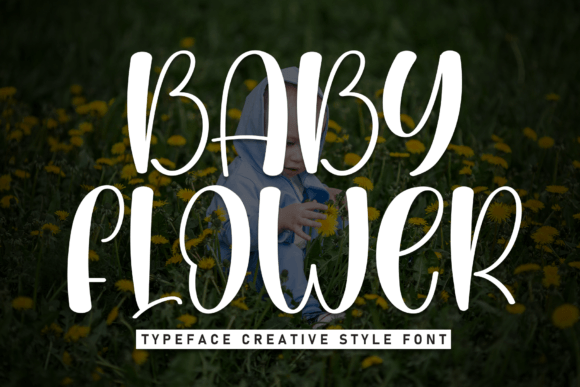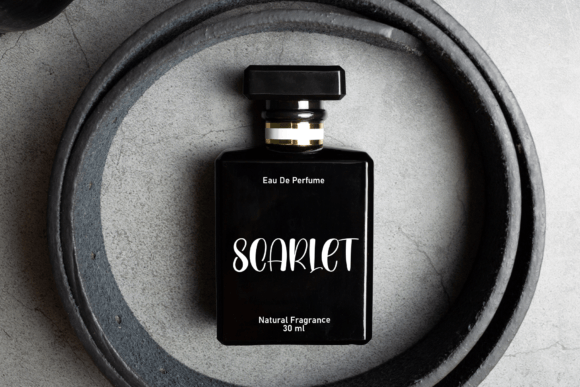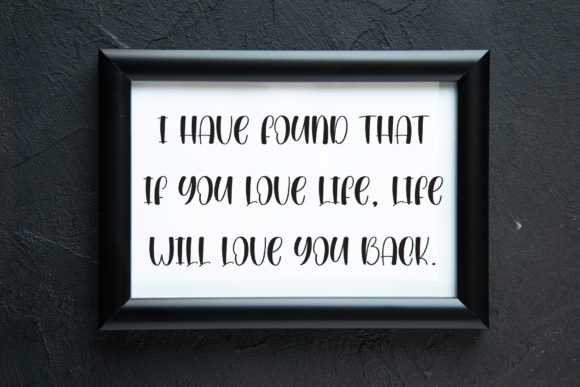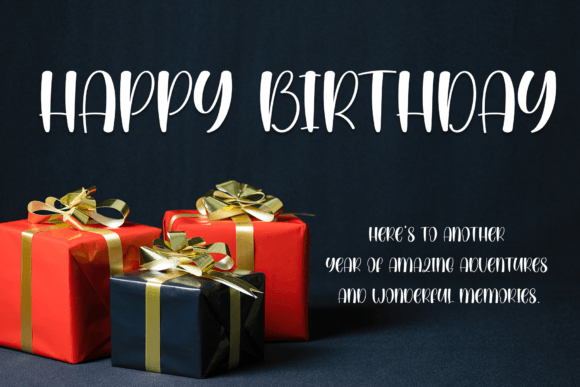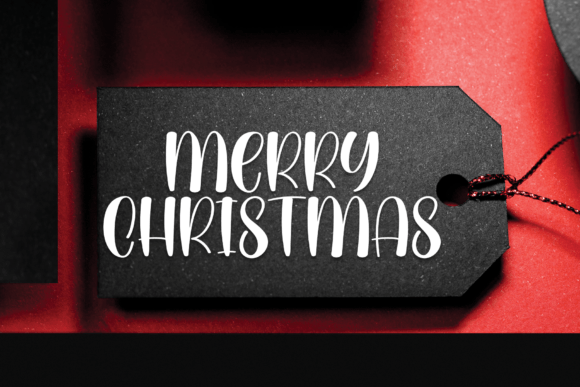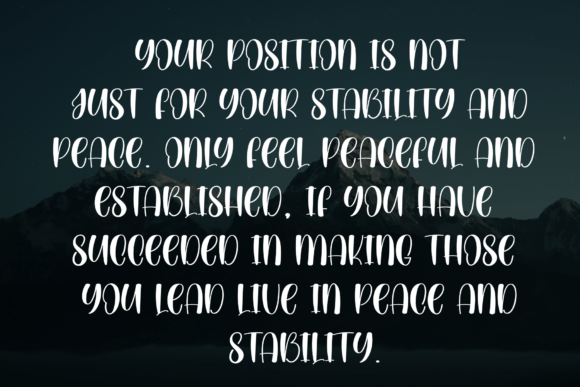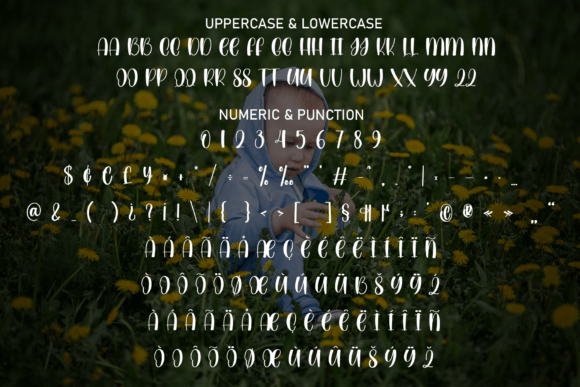
The Charm of Baby Flower Font: Adding Whimsy to Your Creations
Have you ever sat down with a blank sheet of paper and a pen, eager to craft the perfect handwritten note or invitation? The blank page stares back at you, and suddenly, the pressure is on. But what if you had the perfect tool to bring your creativity to life? Enter Baby Flower Font, a delightful handwritten font that’s sure to add a warm, friendly touch to your projects.
This charming font boasts a unique blend of thin and bold lines, creating a playful and whimsical style that’s perfect for designers looking to add a personal touch to their work. Whether you’re a seasoned pro or a creative enthusiast, Baby Flower Font is an invaluable asset that will help you bring your ideas to life with ease.
Baby Flower Font Key Features
- Unique Characteristics: This font features a playful, handwritten style with a mix of cursive and script elements, making it perfect for adding a touch of whimsy to your designs.
Baby Flower Font Review
As a designer, I’ve had the opportunity to work with numerous fonts, and the “Baby Flower Font” is one of the most unique and charming ones I’ve come across.
- The delicate and whimsical feel of the font makes it perfect for children’s books, nursery decorations, and other projects that require a playful touch.
- The font’s intricate details and flourishes add a level of sophistication that’s hard to find in other script fonts.
- The font’s legibility is excellent, making it suitable for body text as well as headings and titles.
- The font’s complexity can make it difficult to use in situations where a simple, clean font is required.
- The font’s cursive nature can make it challenging to read in certain contexts, such as at small sizes or in low-light conditions.
Overall, I’m impressed with the “Baby Flower Font” and its ability to bring a touch of magic to designs. While it may not be suitable for every project, it’s a great addition to any designer’s toolkit.
Use Baby Flower Font for titles, headings, and short paragraphs to add a touch of whimsy and playfulness to your designs.
Experiment with different font sizes and colors to create a visually appealing contrast.
Baby Flower Font is perfect for:
Children’s party invitations and decorations
Wedding stationery and invitations
Baby shower invitations and decorations
Alternatives to Baby Flower Font
Great Vibes Font is a modern, elegant, and whimsical script font that is perfect for creating a romantic and dreamy atmosphere. It is ideal for use in wedding invitations, quotes, and other decorative designs. Great Vibes Font has a similar flowing and cursive feel to Baby Flower Font, but with a more refined and sophisticated look.
Lobster Font is a bold and playful script font that is great for creating attention-grabbing headlines and titles. It has a fun and casual vibe that is perfect for use in social media graphics, advertising, and other promotional materials. While Lobster Font is more bold and edgy than Baby Flower Font, it can be used to create a similar sense of whimsy and playfulness.
Carolyna Pro Font is a beautiful and elegant script font that is perfect for use in luxury branding, high-end packaging, and other sophisticated designs. It has a refined and sophisticated look that is similar to Baby Flower Font, but with a more modern and sleek feel. Carolyna Pro Font is ideal for use in designs that require a touch of elegance and sophistication.
What is the recommended font size for Baby Flower Font?
The recommended font size for Baby Flower Font varies depending on the context and purpose of the design. However, as a general guideline, we recommend using font sizes between 12pt and 24pt for body text, and larger font sizes (36pt and above) for headings and titles. You can adjust the font size to suit your design needs, but be mindful of readability and legibility.